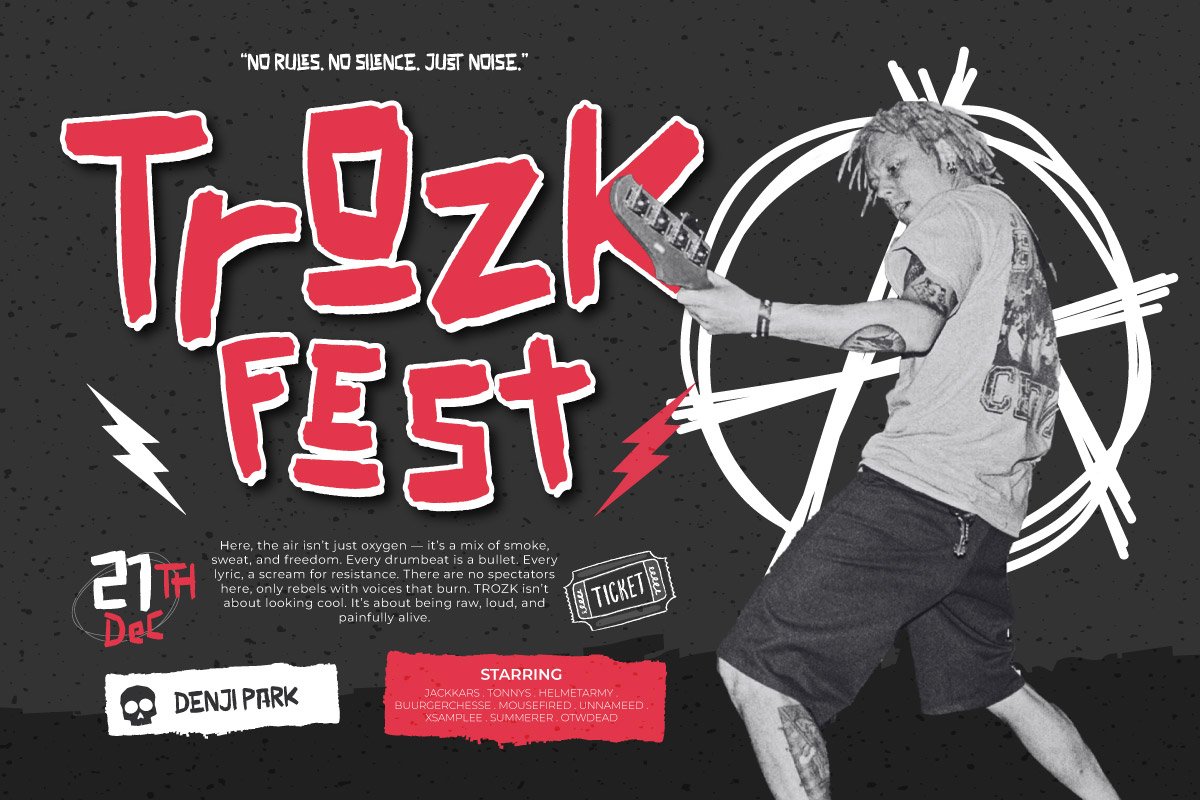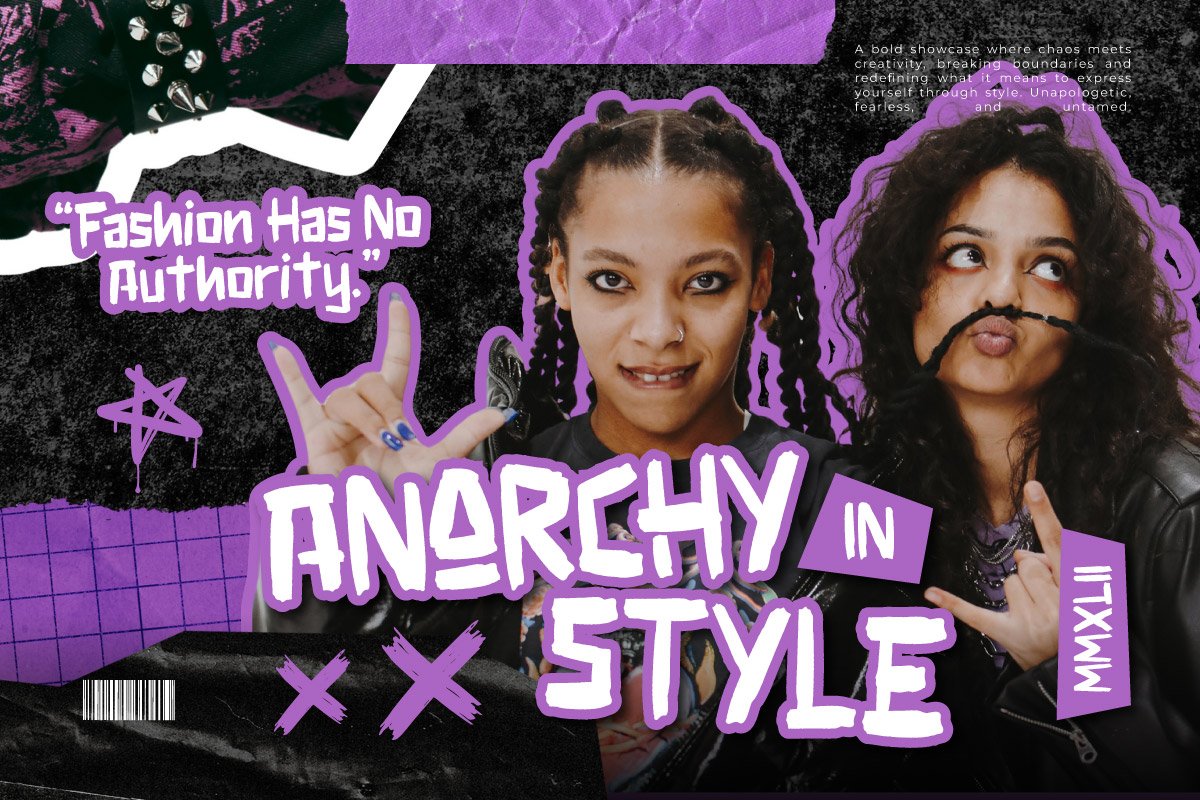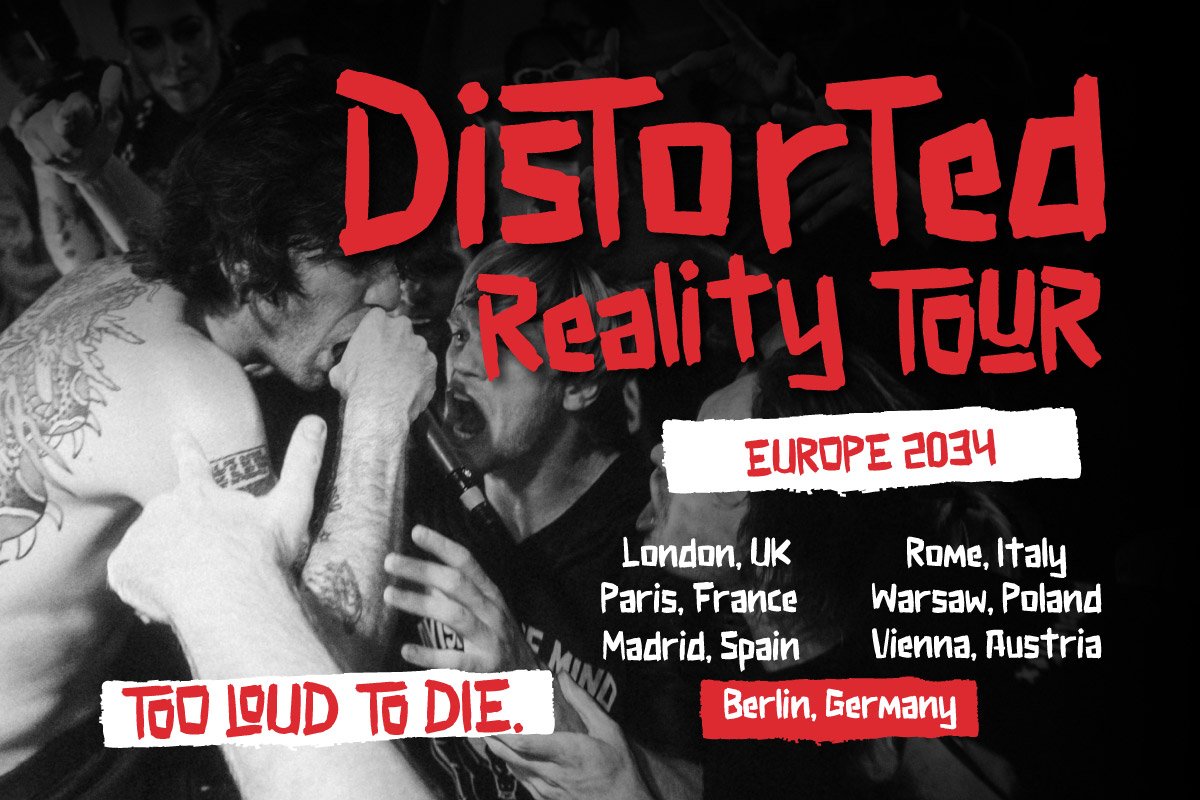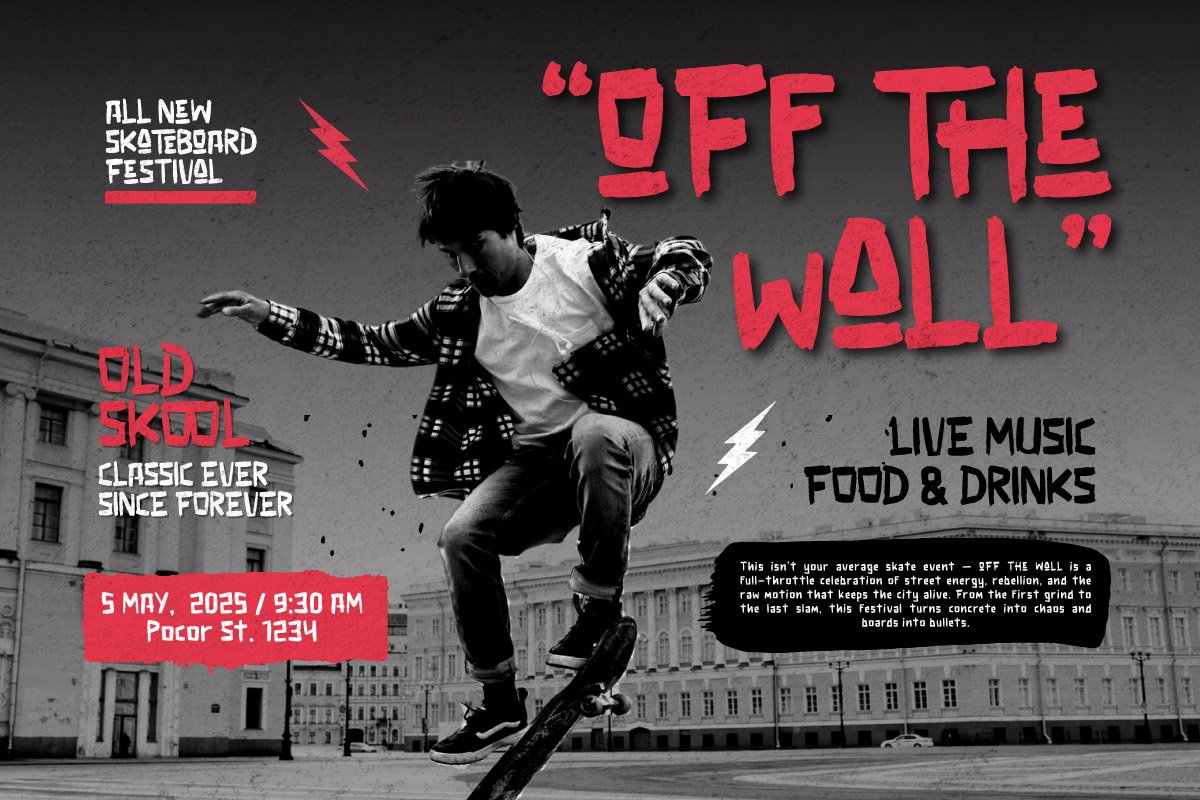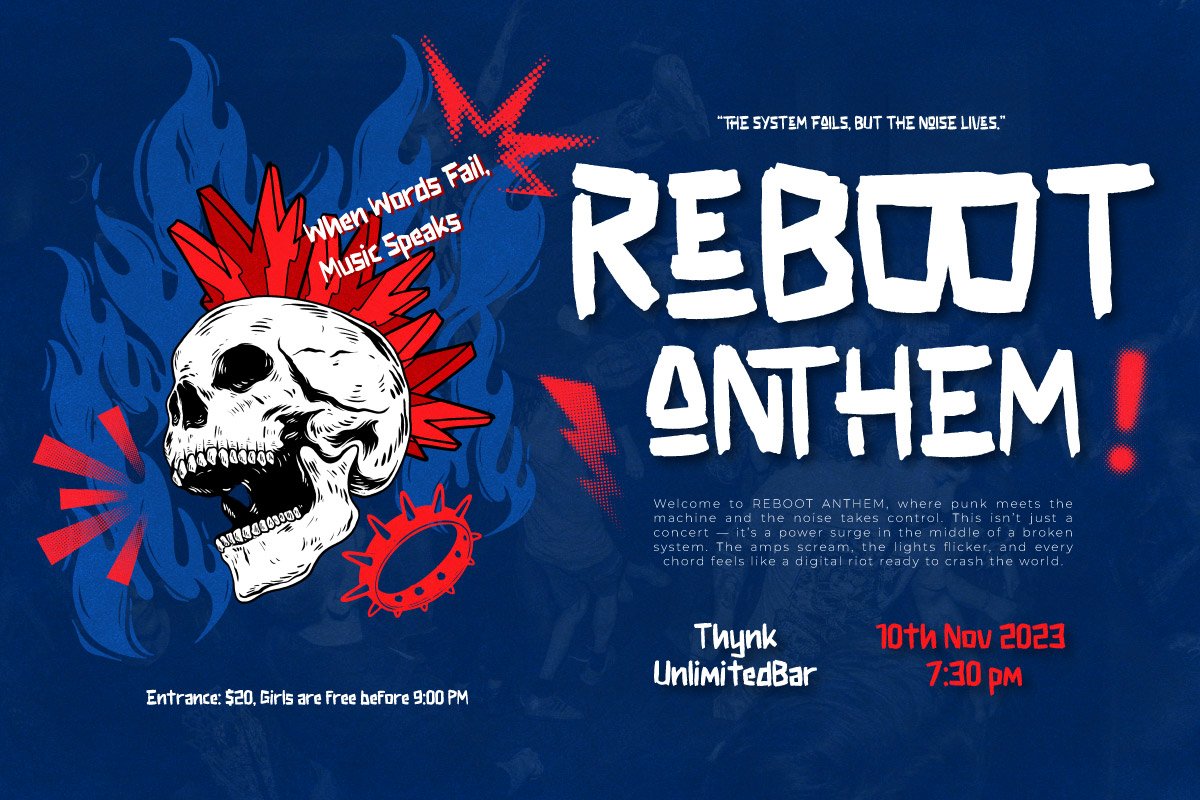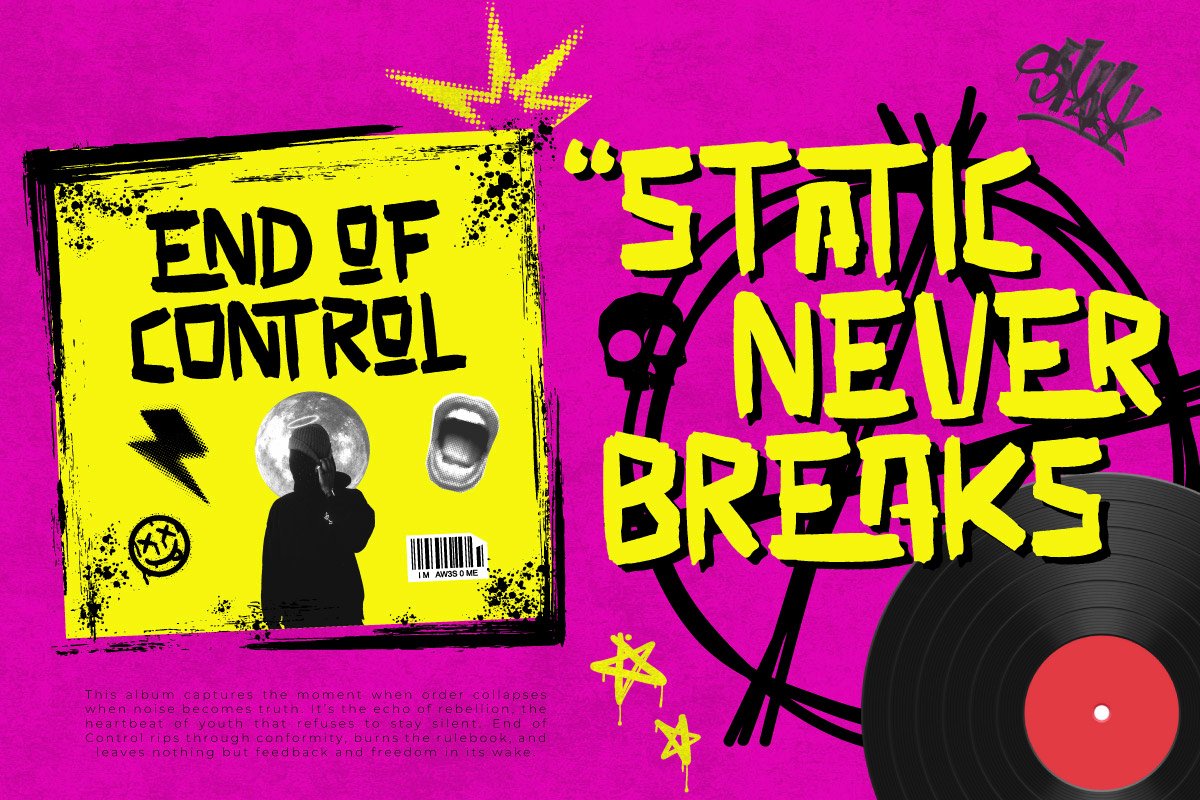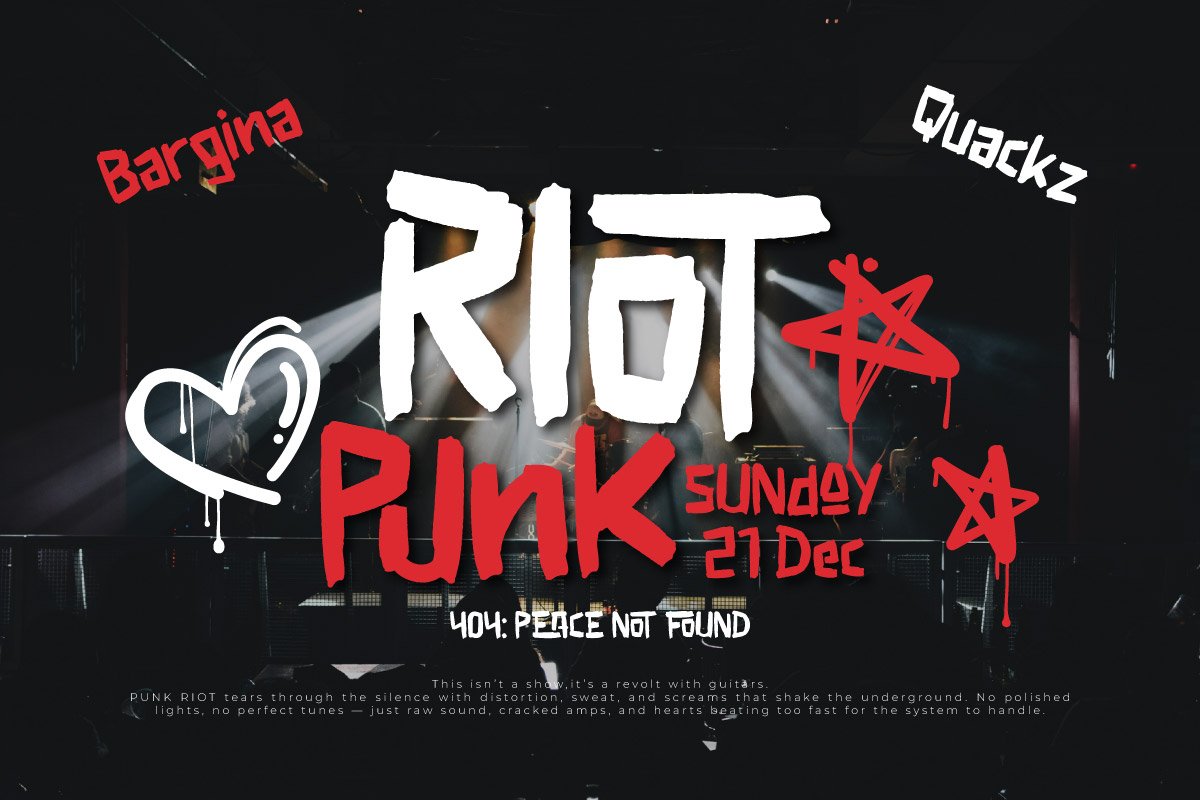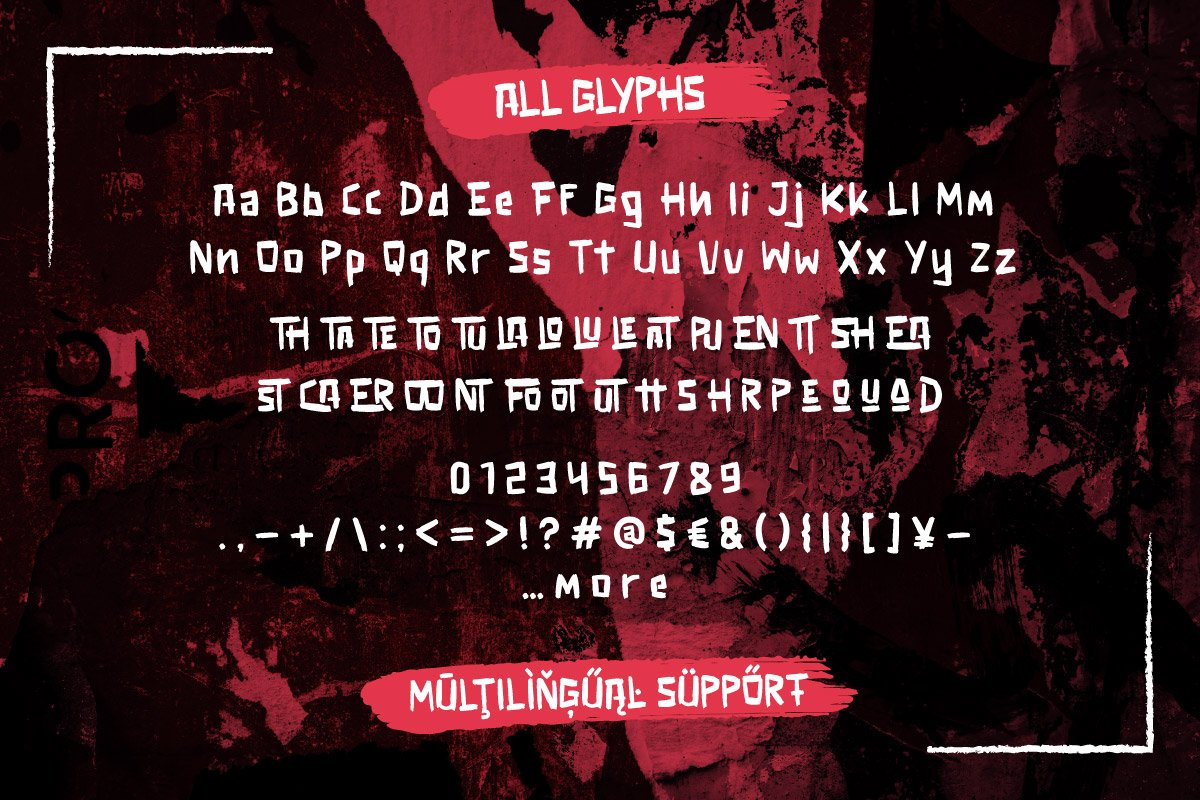
5. Notha Fokal – Rebellique Punk
Notha Fokal – Rebellique Punk
Notha Fokal – Rebellique Punk Font is a bold, chaotic typeface that screams rebellion and attitude. Born from the raw spirit of underground culture, it captures the energy of ripped posters, loud music, and gritty streets. Its rough brush strokes and uneven edges create an authentic hand-drawn look that feels defiant and untamed.
This font is packed with alternates and ligatures, giving each composition a wild, unpredictable edge. Every letter feels alive—crafted for those who dare to break the rules and make noise through their visuals. Whether used for loud headlines, album covers, or experimental branding, Notha Fokal amplifies emotion and chaos in the best way possible.
Notha Fokal is not just a typeface—it’s a visual protest. It brings back the raw essence of punk, rebellion, and self-expression in every stroke, turning words into statements that can’t be ignored.